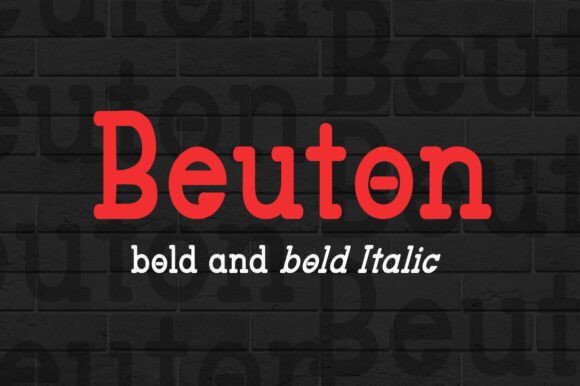
Beuton Bold: Modern Font for Creative Projects
Beuton Bold is a sleek, modern font designed to bring clarity and style to a wide range of design projects. Whether you're working on a logo, a t-shirt design, or a website header, this font offers a clean, professional look that stands out. Its bold weight makes it ideal for attention-grabbing headlines and impactful visual elements.
One of the key features of Beuton Bold is its versatility. It works well in both digital and print formats, making it a valuable tool for designers, marketers, and small business owners. The font's simple yet sophisticated design ensures it fits into various creative contexts without looking out of place.
What Makes Beuton Bold Unique?
Beuton Bold is more than just a typeface—it's a practical solution for those who want to elevate their design work. Its geometric structure and balanced proportions give it a modern feel that appeals to a broad audience. Unlike some fonts that may be too ornate or difficult to read, Beuton Bold maintains a strong, readable form even at smaller sizes.
The font’s design allows it to work well in both light and dark backgrounds, which is especially useful for digital content like website headers or social media graphics. Its clean lines also make it suitable for branding materials, where consistency and professionalism are essential.
Why Use Beuton Bold?
If you're looking for a font that can handle multiple design tasks, Beuton Bold is an excellent choice. It's perfect for creating stationery, such as business cards or letterheads, where a strong visual identity is important. For entrepreneurs and small businesses, this font can help establish a cohesive brand presence across different platforms.
For creatives, Beuton Bold offers a fresh alternative to more common typefaces. It can be used in t-shirt designs, posters, or photo frames to add a modern touch. Its boldness makes it ideal for headings, ensuring your message is clear and eye-catching.
Designers who work with print materials, like leaflets or music covers, will appreciate how Beuton Bold translates to physical formats. Its sharp edges and consistent stroke width maintain quality whether it's printed on paper or displayed on a screen.
Where Can You Use Beuton Bold?
Beuton Bold is widely applicable across different industries and projects. In the digital space, it's great for website headers, image sliders, or social media posts. Its readability makes it a good fit for web design, where clarity is crucial for user engagement.
In the world of print, Beuton Bold shines in logos, posters, and promotional materials. Its bold weight ensures that it remains visible from a distance, making it ideal for signage or large-format displays. For educators or presenters, using this font in slides or handouts can help emphasize key points effectively.
For hobbyists and casual users, Beuton Bold offers a way to add a professional touch to personal projects. Whether you're designing a custom greeting card or creating a digital art piece, this font can enhance the overall aesthetic without requiring advanced design skills.
Considerations Before Using Beuton Bold
Another consideration is the context in which you're using the font. While Beuton Bold is versatile, it may not be the best choice for body text in long documents. Its bold weight is more suited for headings, titles, or short phrases where visual impact is key.
Conclusion
Beuton Bold is a powerful and flexible font that can enhance a variety of design projects. Its modern appearance, readability, and adaptability make it a valuable addition to any designer's toolkit. Whether you're a beginner or an experienced professional, this font offers a reliable way to create visually appealing content across different mediums.
By understanding how and where to use Beuton Bold, you can unlock its full potential and elevate your creative work. With the right approach, this font can become a go-to choice for a wide range of design needs, helping you achieve a polished and professional look every time.